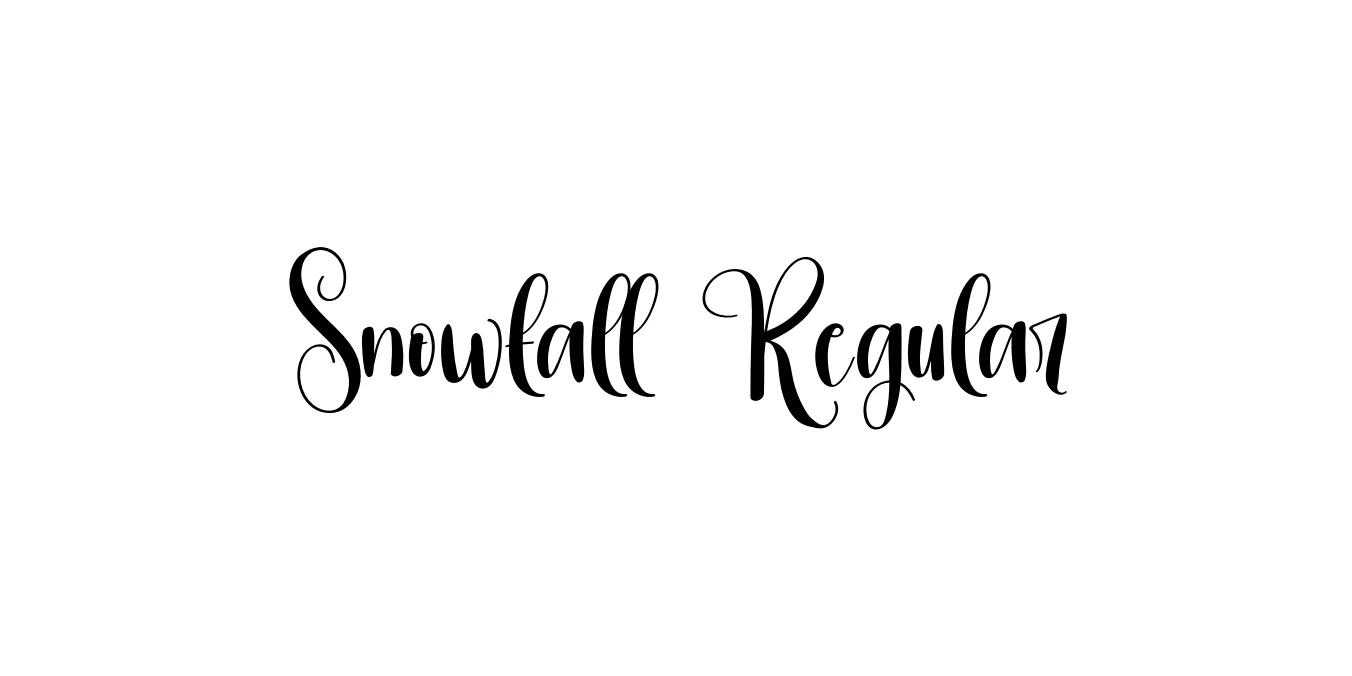
Snowfall Regular
Designed by Graphic House
| Category | Decorative Brush Script |
Snowfall Regular was conceived as a boutique display typeface during the mid-2010s rise of digital hand-lettering trends. Designed to capture the ephemeral and whimsical nature of winter landscapes, its origin lies in the combination of traditional calligraphy and modern brush-pen techniques. It was specifically engineered for the greeting card and seasonal marketing industries, filling a niche for typefaces that balance artisanal charm with high-resolution digital precision.
Technical analysis of Snowfall Regular reveals a moderate x-height that provides a stable core for its more expressive, sweeping ascenders. The letterforms are characterized by a bouncy baseline and varying stroke weights that mimic the organic pressure of a physical brush. While the ligatures are fluid, the kerning is intentionally generous to maintain legibility against its decorative flourishes. The visual weight is concentrated in the downstrokes, creating a rhythmic cadence that prevents the font from feeling overly ethereal, ensuring it maintains a strong presence in display environments.
Snowfall Regular Best Uses
Exceptional for holiday invitations and winter-themed stationery.
Ideal for creating atmospheric quotes and seasonal lifestyle branding.
Adds a bespoke, artisanal touch to winter product labels and gift tags.